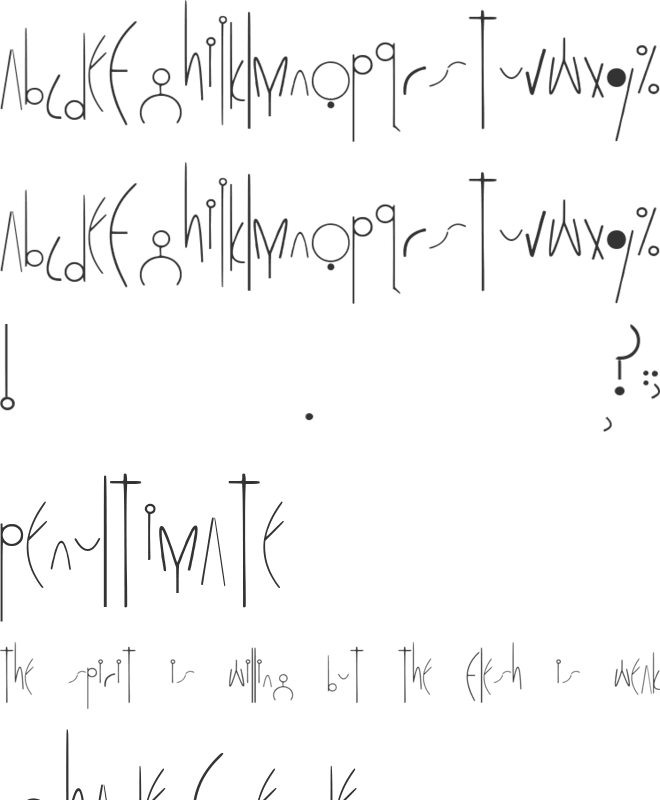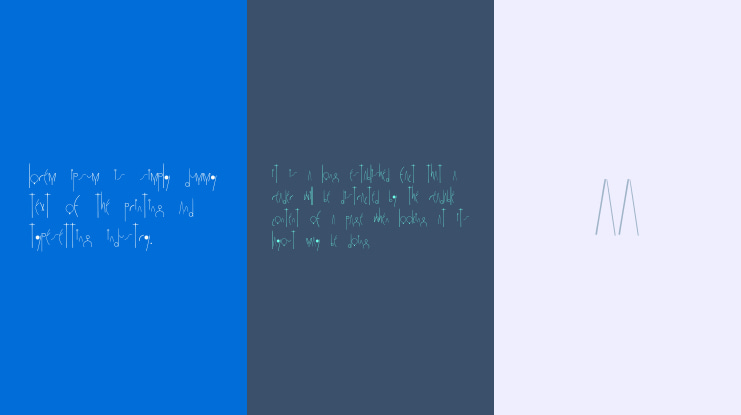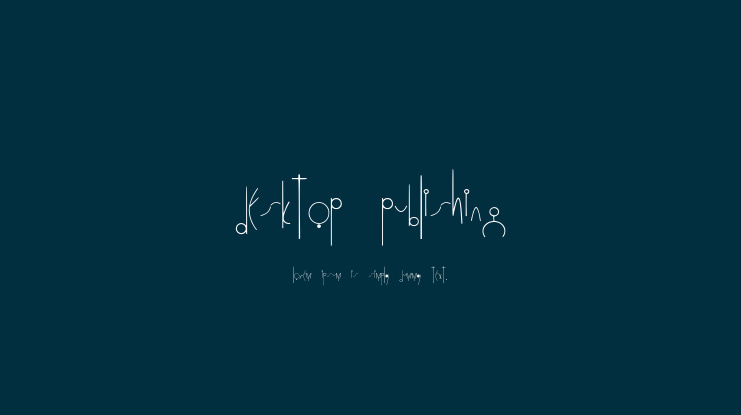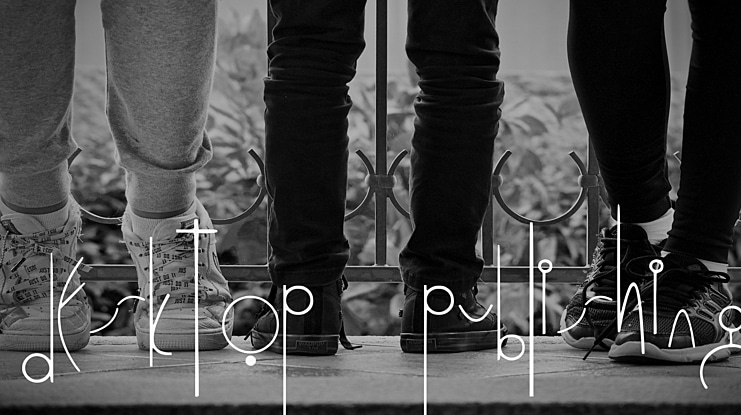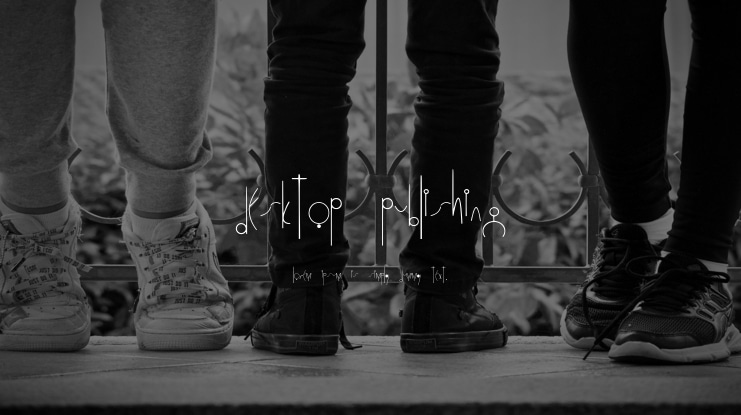
Desktop Publishing Font
Desktop Publishing was created on 27th March 2023 by S.A. Evans of TheCrownIsMine for Personal and Commercial Use. This futuristic font was created while Pluto was at Zero degrees of Aquarius. To get the above effect, I went into a Word document and used WordArt to type out the words. I put a Bevel effect onto the letters. Image of fingers coming out of the earth with large planet hovering - by KELLEPICS - Stefan Keller at Pixabay.com. Image of planets hovering above city skyline by GENE1970 at Pixabay.com. Large planet hovering above the earth where people are standing with a tree to one side: image by KELLEPICS - Stefan Keller at Pixabay. Ocean Storm image by ELG21 at Pixabay.com. Spaceship near mountain image by KELLEPICS at Pixabay. Old Typewriter image by iniesta44 at Pixabay. Red Apple by Mylene2401 at Pixabay.